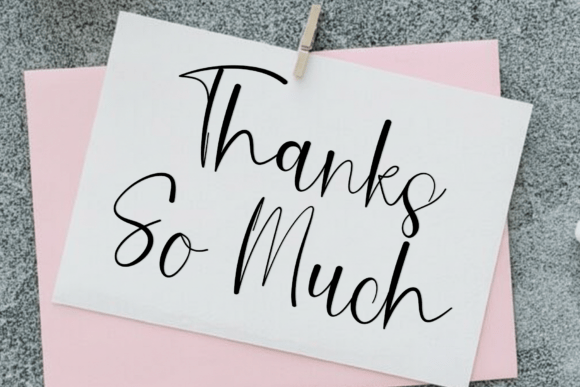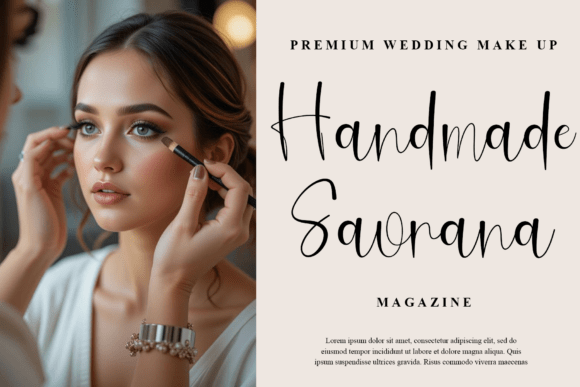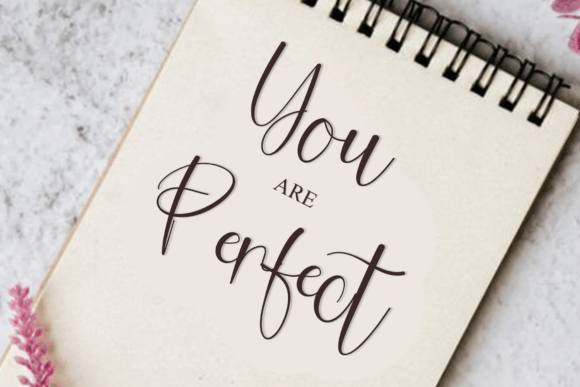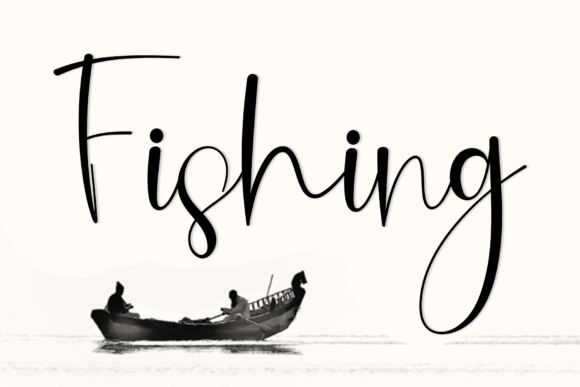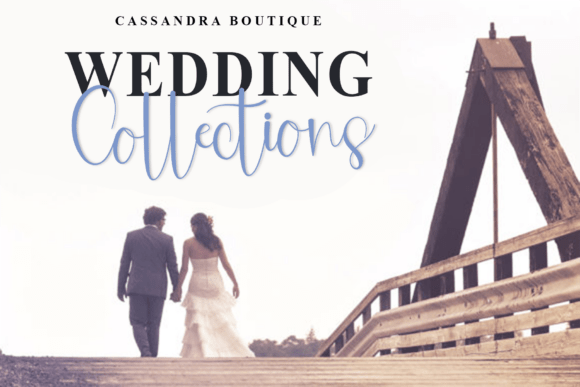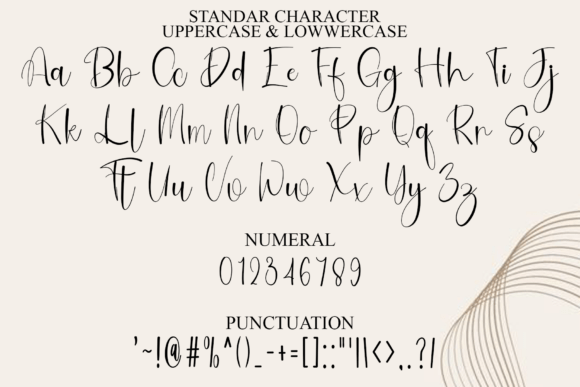
Gonestones Font: The Perfect Choice for Creative and Personal Projects
In the world of typography, fonts play a crucial role in conveying the tone and personality of a design. If you’re looking for a font that exudes warmth, friendliness, and a touch of playfulness, look no further than Gonestones Font. This casual and creative font is perfect for personal projects, invitations, social media graphics, and any design that requires a relaxed and approachable feel.
The Characteristics of Gonestones Font
Gonestones Font is characterized by its round, playful strokes that create a sense of warmth and friendliness. The font’s charming, hand-drawn aesthetic adds a fun and unique touch to any design, making it perfect for designers and crafters who want to add a personal touch to their work. The font’s relaxed and approachable feel makes it ideal for designs that require a casual and informal tone.
What Makes Gonestones Font Special?
Perfect for Personal Projects and Designs
Gonestones Font is perfect for personal projects and designs that require a touch of warmth and personality. Whether you’re creating invitations, social media graphics, or blog posts, this font is sure to add a unique and playful touch to your design. The font’s casual and creative vibe makes it ideal for designers and crafters who want to create designs that are relaxed, approachable, and fun.
Why Designers and Crafters Love Gonestones Font
Tips for Using Gonestones Font
Gonestones Font is a casual and creative font that exudes warmth and friendliness. Its round, playful strokes create a relaxed and approachable feel, perfect for personal projects, invitations, and social media graphics. With its standard PUA Encoded glyphs and compatibility with a wide range of design applications, Gonestones Font is the perfect choice for designers and crafters who want to add a unique and playful touch to their work.